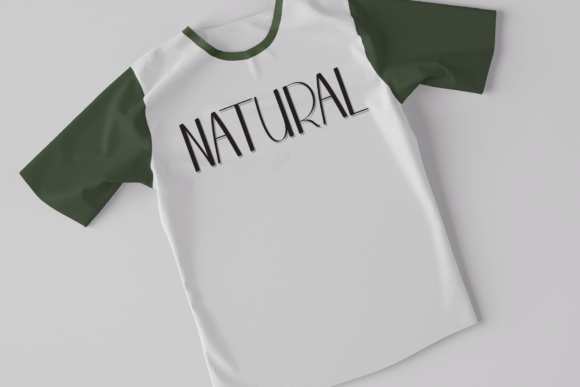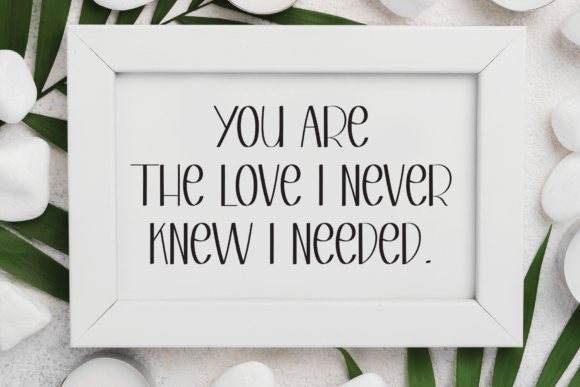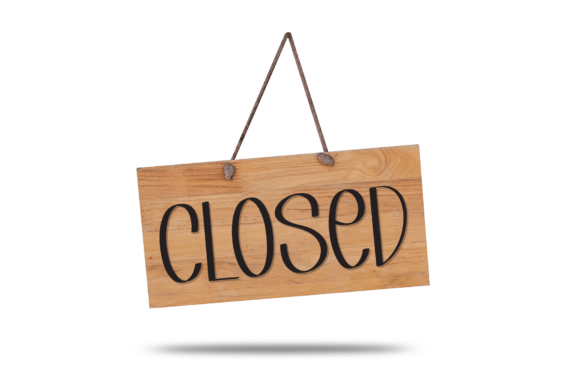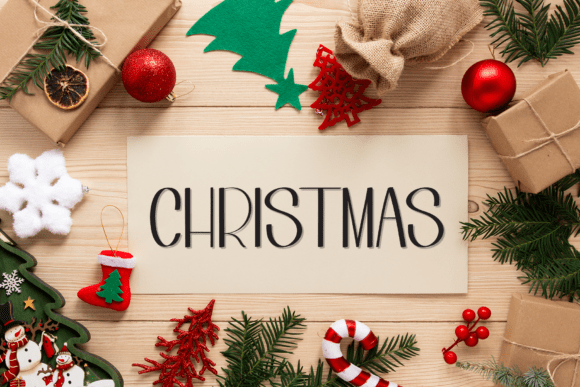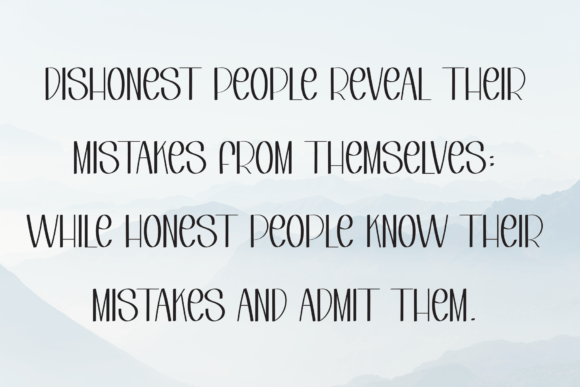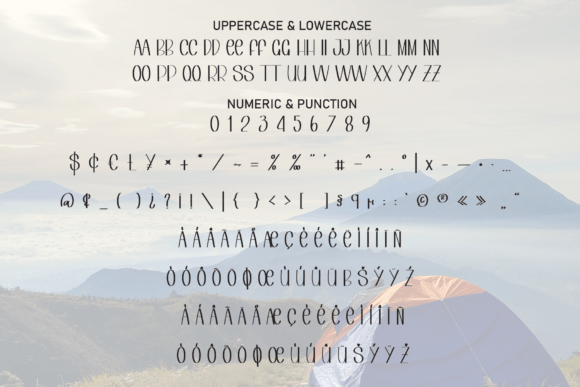
Camping Font: A Charmingly Handwritten Display Font for Your Creative Projects
Are you looking for a font that can add a touch of warmth and friendliness to your designs? Look no further than the Camping Font, a charmingly handwritten display font that exudes sweetness and playfulness. This delightful font is perfect for elevating your wedding invitations, crafting heartfelt cards, or adding a dash of fun to any design that needs a personal touch.
What Makes Camping Font So Special?
Camping Font is a unique and aesthetically pleasing, handwritten font that captivates with its whimsical vibe and charming character. Its playful and friendly feel makes it perfect for a wide range of creative projects, from wedding stationery and greeting cards to social media graphics and branding materials. With Camping Font, you can set your creativity free and add a touch of personality to your designs.
Perfect for Wedding Invitations and Stationery
Wedding invitations and stationery are a great way to showcase your personal style, and Camping Font is the perfect choice for adding a touch of whimsy and romance. This beautiful font is ideal for creating unique and eye-catching wedding invitations, save-the-date cards, and other stationery items that will make your special day truly unforgettable.
Crafting Heartfelt Cards and Gifts
Camping Font is also perfect for crafting heartfelt cards and gifts for friends and loved ones. Whether you’re creating a handmade card, a gift tag, or a personalized gift, this font will add a touch of warmth and personality to your project. With Camping Font, you can create one-of-a-kind gifts that will be treasured for years to come.
Adding a Delightful Touch to Your Designs
Camping Font is a versatile font that can be used in a wide range of design projects, from social media graphics and branding materials to packaging and advertising. This font is perfect for adding a playful and friendly touch to your designs, and its unique character will help your project stand out from the crowd.
Key Features of Camping Font
- Charmingly handwritten display font
- Exudes sweetness and friendliness
- Perfect for wedding invitations, stationery, and greeting cards
- Ideal for adding a touch of whimsy and romance to your designs
- Unique and aesthetically pleasing character
- Playful and friendly feel
- Versatile and suitable for a wide range of design projects
Tips for Using Camping Font
Here are a few tips for using Camping Font in your designs:
- Use Camping Font as a display font to add a touch of personality to your designs
- Pair Camping Font with other fonts to create a unique and eye-catching combination
- Use Camping Font to add a playful and friendly touch to your branding materials and advertising